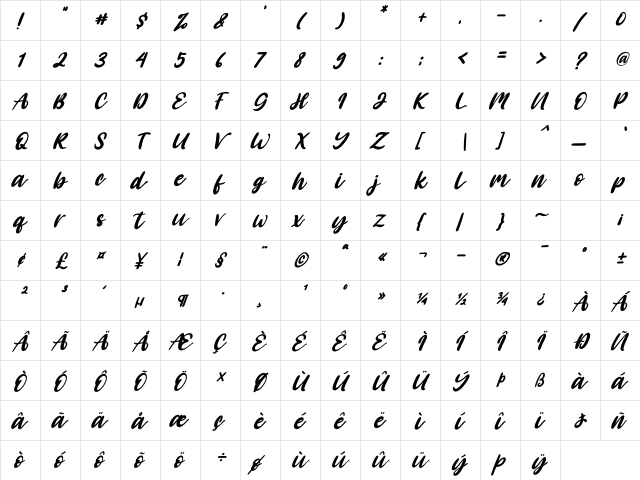
Angelica Caroline Italic Italic
Design Context for Angelica Caroline Italic Typeface
Angelica Caroline Italic takes a measured approach to typography — its balanced proportions and neutral character make it a reliable workhorse for both digital and print work. The slanted form adds forward momentum and visual energy.